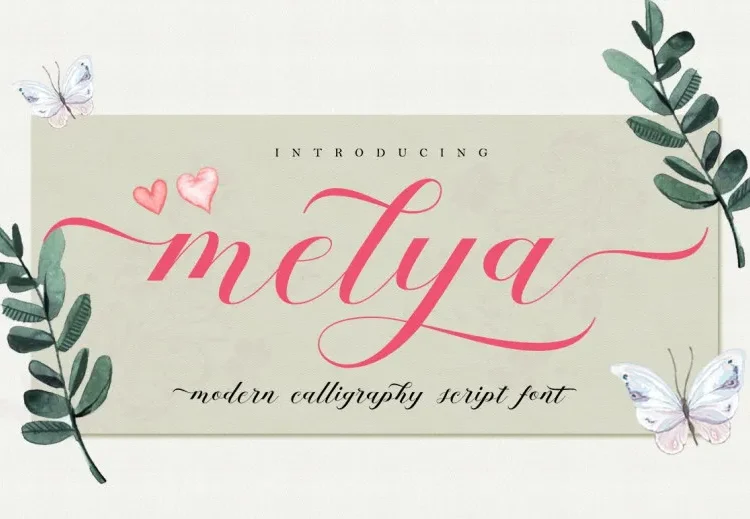
Melya Font
Melya Calligraphy is a beautifully crafted font that showcases contemporary hand scratches, offering a fresh, artistic touch to your designs. Its fluid, handwritten style gives it a modern appeal, making it perfect for creative and personalized projects. Whether you’re designing for print or digital media, Melya brings elegance and charm to every application.
This versatile font includes lowercase letters, various punctuation styles, and numbers, making it easy to implement into a wide range of projects. With multilingual support, Melya Calligraphy can be used across different languages, ensuring your designs remain polished and cohesive no matter the audience.
From invitations and branding materials to websites and social media posts, Melya Calligraphy excels in a variety of creative applications. Its smooth and expressive lines add a unique, artistic flair, making it ideal for projects that require a personal, stylish touch.